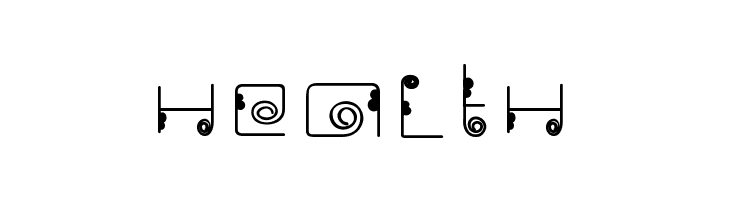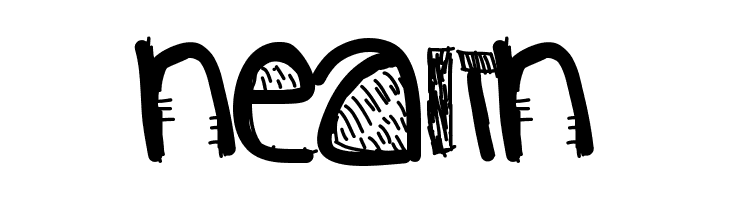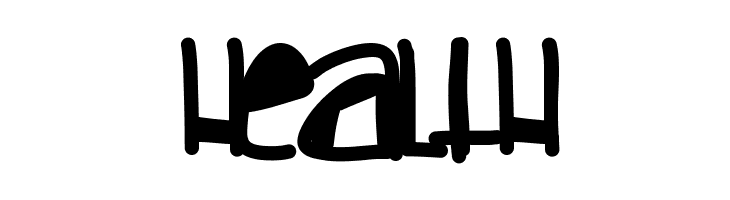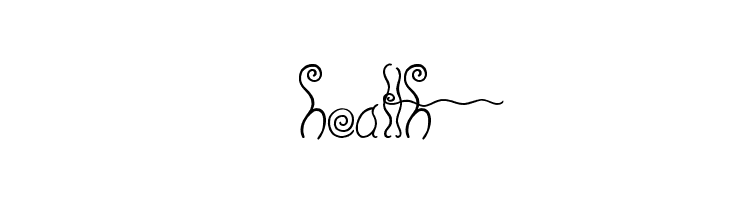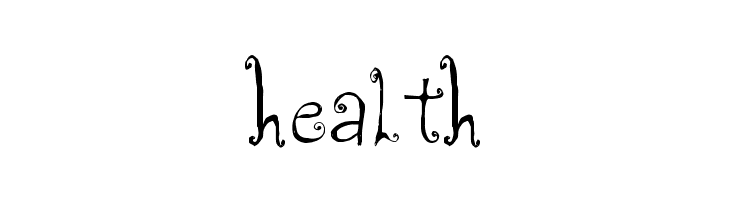
A playful, hand-drawn font with stitched embellishments and a whimsical style.
A bold, distressed font with ornate, vintage embellishments.
A bold, playful, and decorative hand-drawn font with unique embellishments.
A whimsical and decorative font with swirling, curly embellishments.
A whimsical, decorative font with curly embellishments and a vintage feel.
A bold, decorative font with thorn-like embellishments and a gothic style.